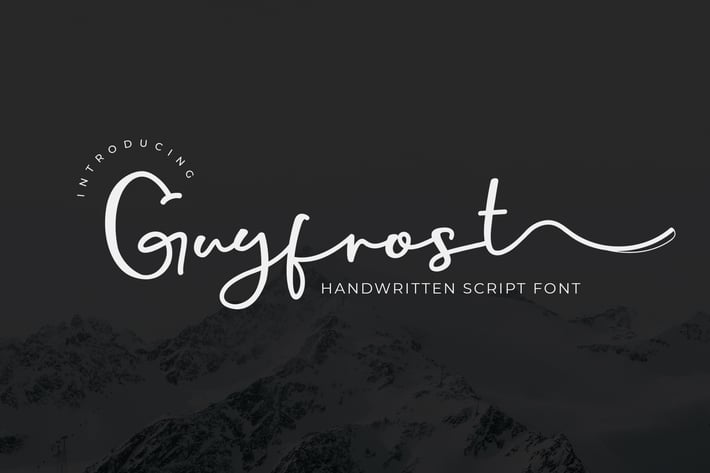
Guyfrost - Handwritten Script Font
Guyfrost
Guyfrost Font is based on original handwriting. Made with carefully and detail with beautiful
beginning and ending swash. This font is perfect for making your set of apparel,
T-shirt,Hoodie, quotes, product packaging, brand, blog posts,
greeting cards, labels, posters, wall art, etc